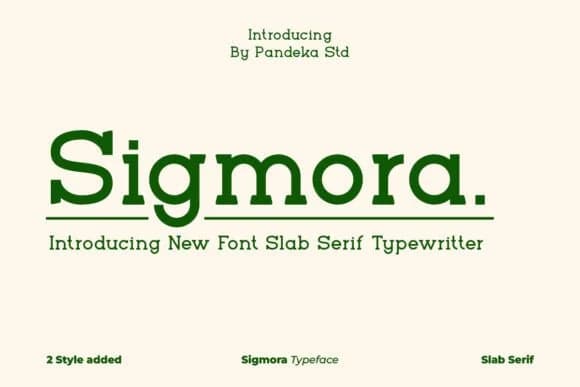
The vintage coffee roastery's new packaging redesign demands a typeface that feels unmistakably handcrafted yet stays completely legible at small sizes. Meet Sigmora, created by pandekastudio, a typewriter-inspired slab serif that delivers exactly that authentic retro flavor without veering into parody or pastiche territory. The font pairs chunky, architectural serifs with a monospaced character width that recalls classic typewriter output, while holding enough visual sophistication for contemporary branding and editorial applications. From a single striking headline to a full packaging system, Sigmora maintains visual coherence and impact across every scale.
This typeface really excels at retro product labeling work (boutique coffee packaging, artisan tea labels, craft chocolate boxes), vintage concert poster design, and letterpress-inspired business collateral for upscale brands. Retro wedding invitations, DIY signage for vintage retail spaces, and book covers with period aesthetics all benefit from its bold, accessible character. The typewriter weight feels particularly commanding at larger display sizes while staying readable when scaled down for body text or small product labels. Its distinctive monospaced structure is especially effective for projects seeking authentic nostalgic energy without veering into kitsch or feeling dated. Available on Creative Fabrica, Sigmora brings that genuine 70s and 80s visual language to your next project.
- Sturdy, Confident, Typewriter
Sigmora Font is a slab serif font that shines as a display or heading face. Pair it with a clean sans-serif or serif font for body text β the contrast creates a clear hierarchy while the two styles stay balanced and easy to read.